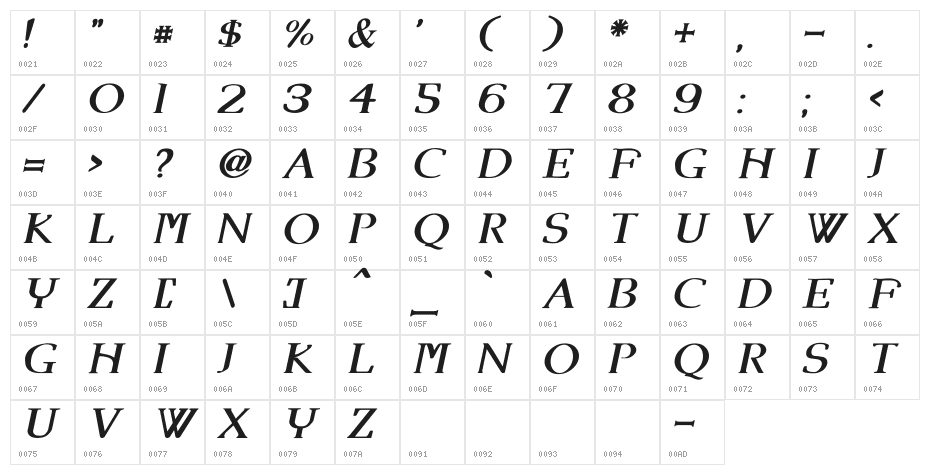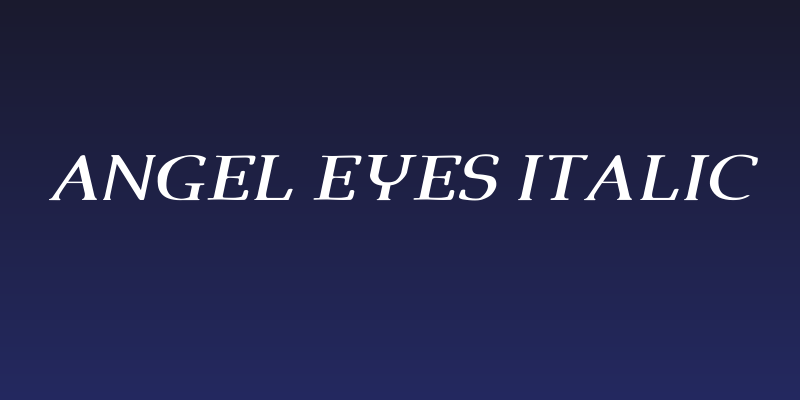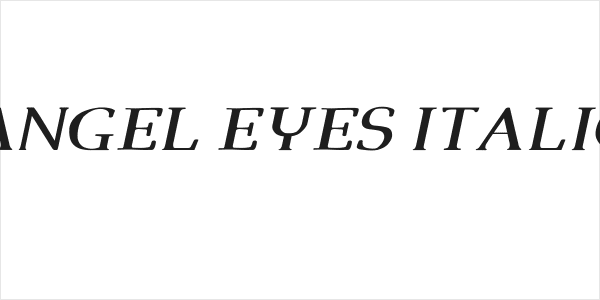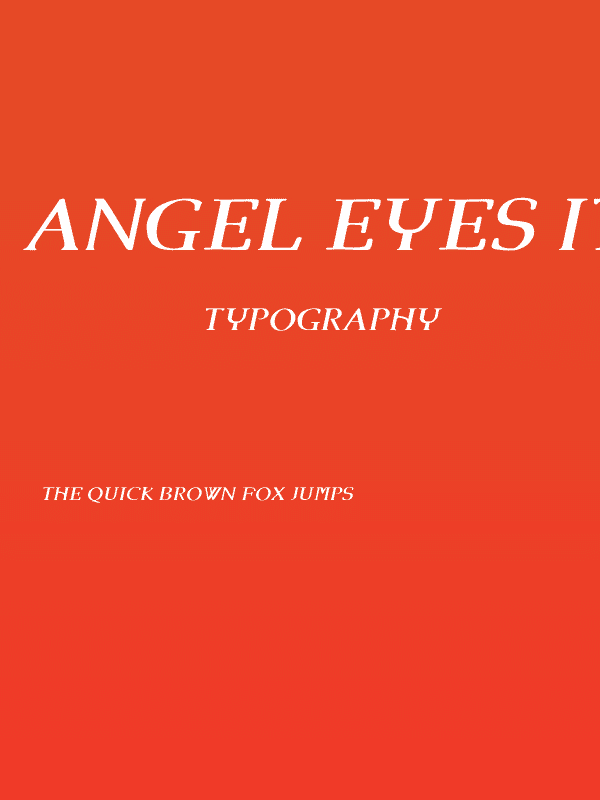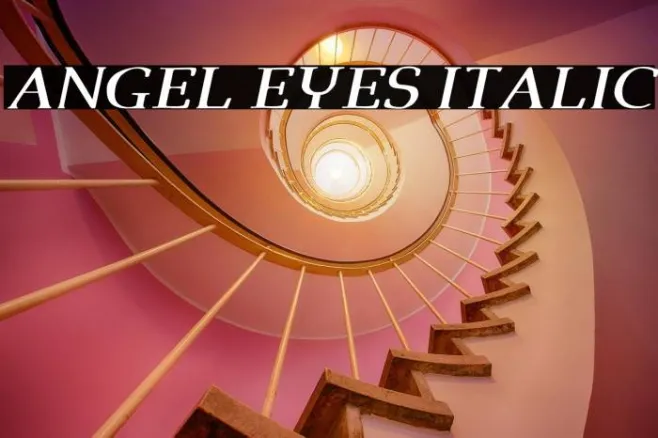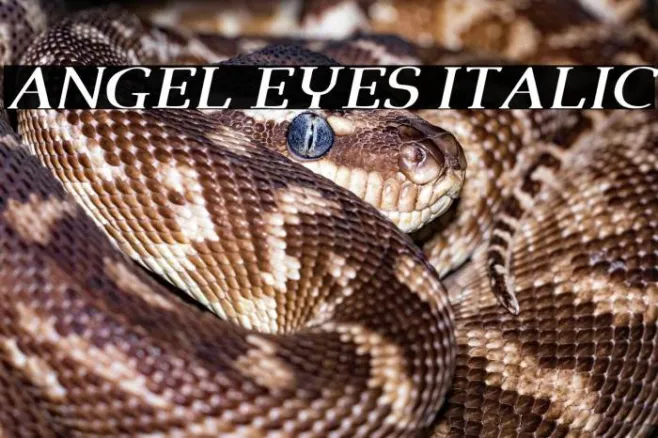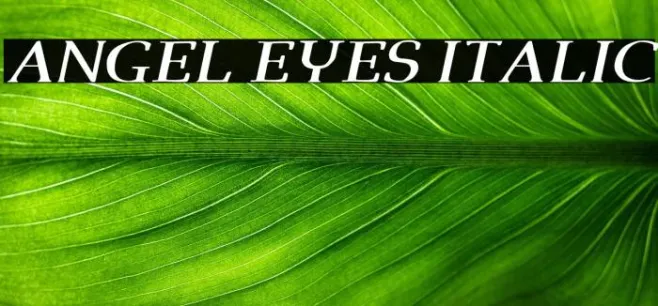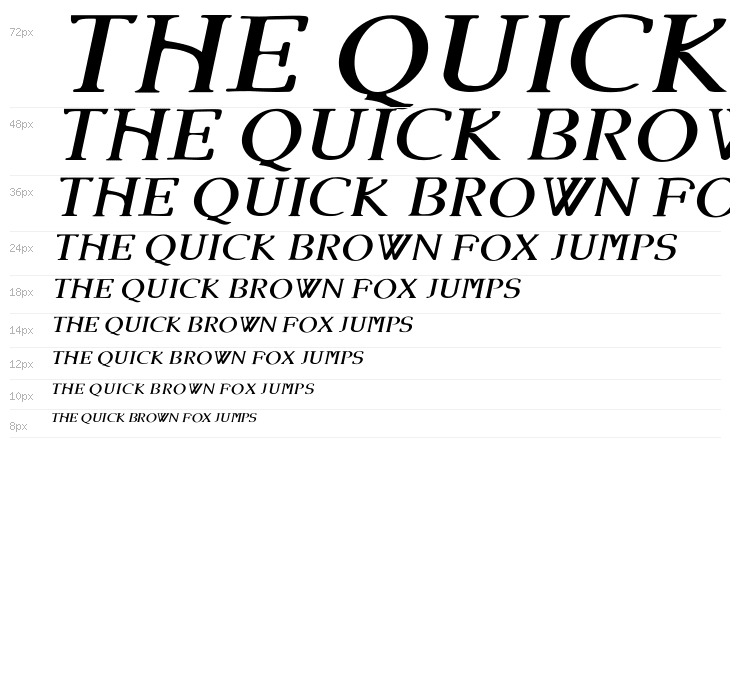
Angel Eyes Italic Font
Angel Eyes Italic Description
This font features a dynamic and elegant italic style, characterized by its slanted and flowing letterforms. The strokes are smooth and slightly curved, giving it a sophisticated and graceful appearance. The uppercase letters are bold and prominent, while the lowercase letters maintain a consistent slant, enhancing readability. The numerals are distinct and well-proportioned, complementing the overall aesthetic. Special characters are designed with the same attention to detail, ensuring uniformity across the font. This font is suitable for projects that require a touch of elegance and style.